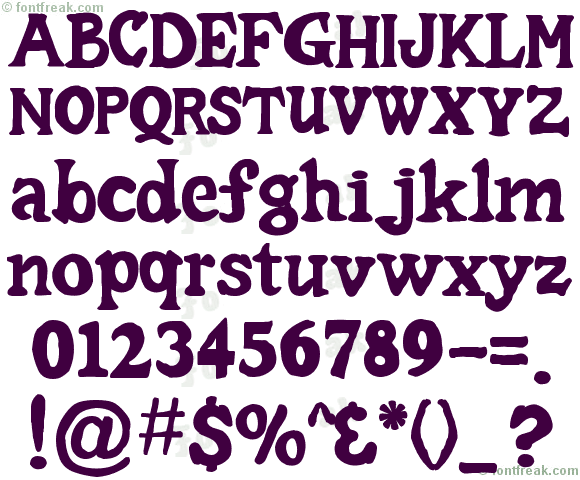
Caesar Little SS
The Caesar Little SS font by Sharkshock is a distinctive display typeface that exudes a playful yet bold character, making it a standout choice for various design projects. This font is characterized by its unique serif style, featuring rounded edges and exaggerated features that create a whimsical aesthetic. The stroke weight is moderate, providing a balanced contrast that enhances legibility while maintaining a fun and engaging visual appeal. The spacing between the letters is designed to be slightly tight, which adds to its cohesive look and feel, making it ideal for attention-grabbing applications.
Best suited for creative endeavors, Caesar Little SS is perfect for wedding invitations where a touch of elegance is desired without sacrificing personality. It's also an excellent choice for movie posters, especially in genres that lean towards comedy or family-friendly themes. Additionally, restaurant menus can benefit from this font, as its playful nature can evoke a sense of warmth and approachability. Small business owners looking to develop a memorable brand identity will find this font particularly appealing for logo designs and marketing materials.
Targeting graphic designers, content creators, and small business owners, Caesar Little SS offers versatility and charm, making it a valuable addition to any designer's toolkit. The font's freeware license ensures that it is accessible to all, allowing users to incorporate its unique style into their projects without financial constraints.
What makes the Caesar Little SS font stand out is its ability to blend fun with functionality. It captures attention while remaining easy to read, making it an ideal choice for projects that require a distinctive touch. Whether used in print or digital formats, the Caesar Little SS font free download provides a creative solution that enhances any design endeavor.